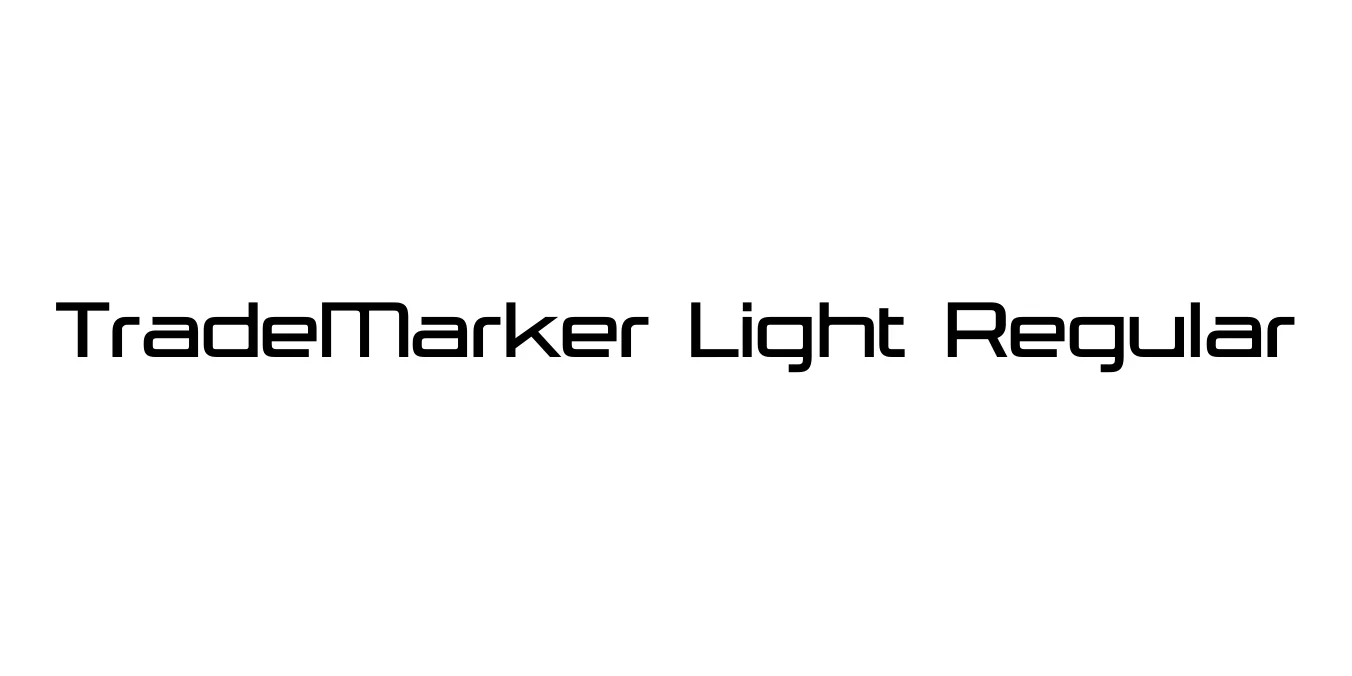
TradeMarker Light Regular
Designed by Ray Larabie
TradeMarker Light Regular is a sophisticated sans-serif typeface designed by Ray Larabie of Typodermic Fonts. It reflects a modern interpretation of classic grotesque styles, emphasizing clarity and a neutral tone that adapts well to various design contexts. The light weight provides an airy, elegant feel that is particularly effective for high-end branding and minimalist layouts where whitespace plays a crucial role.
This typeface features a large x-height and open apertures, which enhance its legibility across both digital and print mediums. While it carries a professional and corporate aesthetic, its subtle geometric construction prevents it from feeling overly rigid. It is a versatile choice for designers seeking a balance between functional efficiency and contemporary style in editorial design or complex user interfaces.
TradeMarker Light Regular Best Uses
Creating a clean and trustworthy visual identity for modern businesses.
Body text and captions in high-end magazines or annual reports.
Navigation menus and informative content on professional websites.